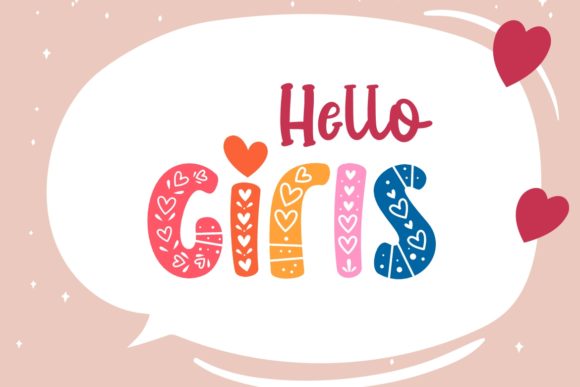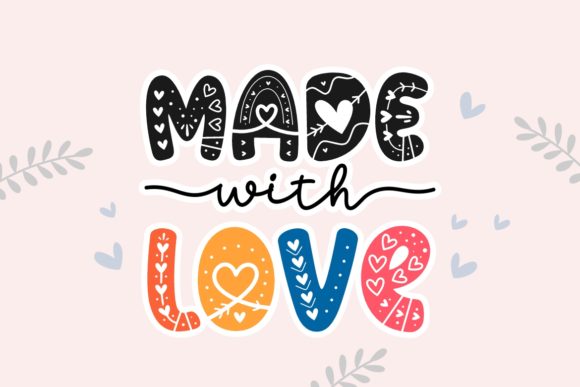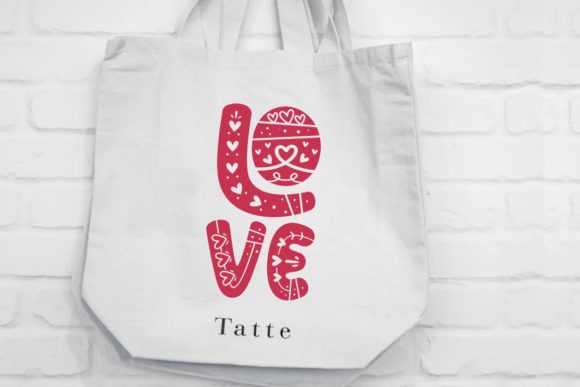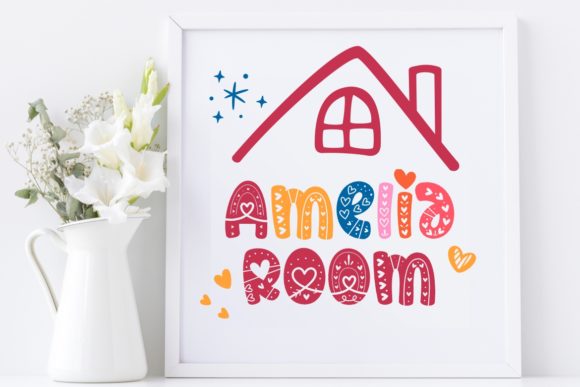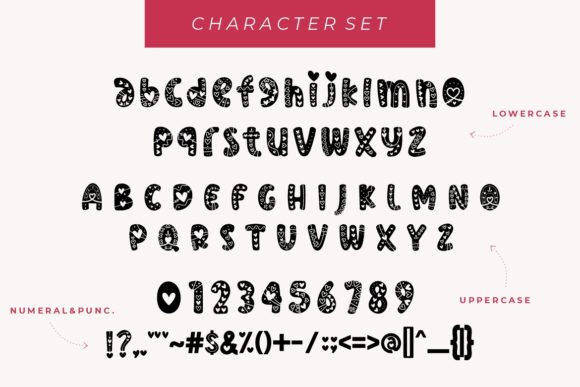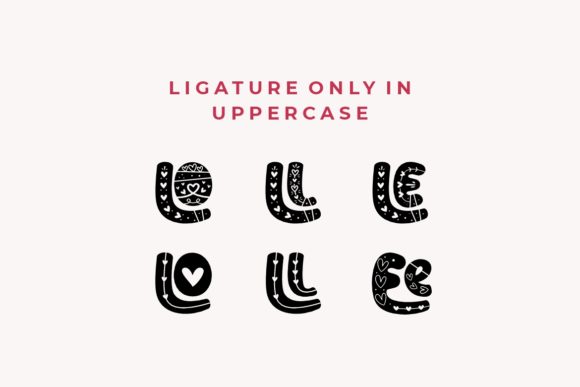
Introduction to Lover Font Font
Lover is a cool, friendly and cute decorative font.
Whether you use it for cartoon related designs, children games or just any creation that requires a lovely touch, this font will be an amazing choice .
Key Features of Lover Font Font
Why Choose Lover Font Font?